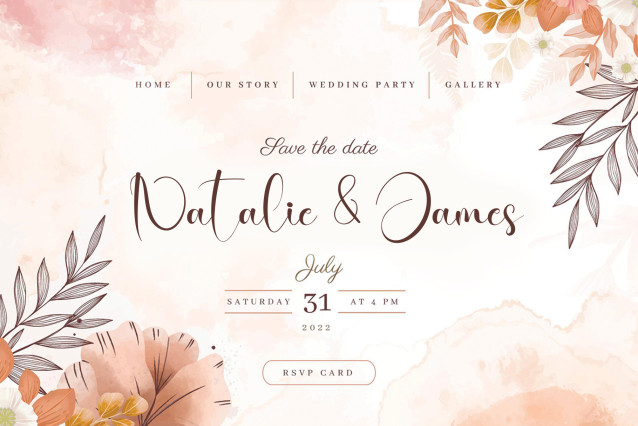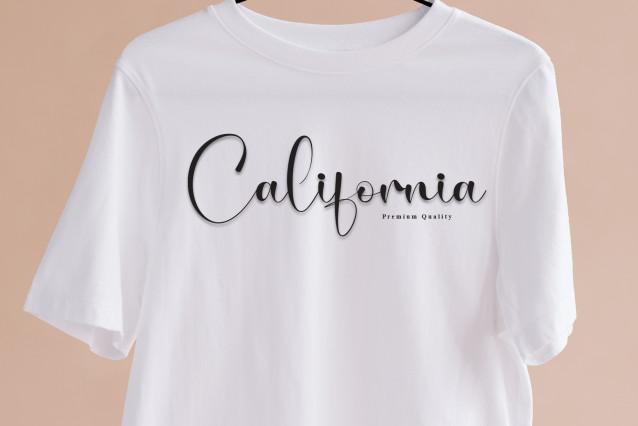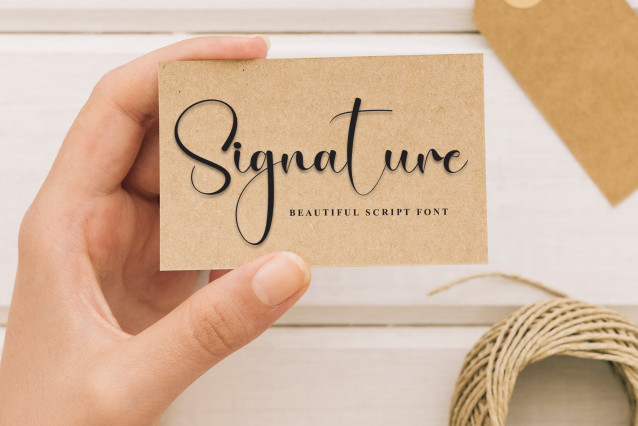
Paradise Handwritten Font – special creative products for you, our products will give you an extraordinary experience. the latest style letters are perfect for wall displays, wedding invitations, social media post logos,
advertisements, product packaging, product designs, labels, photography, watermarks, invitations, stationery, and any project that requires taste handwriting.